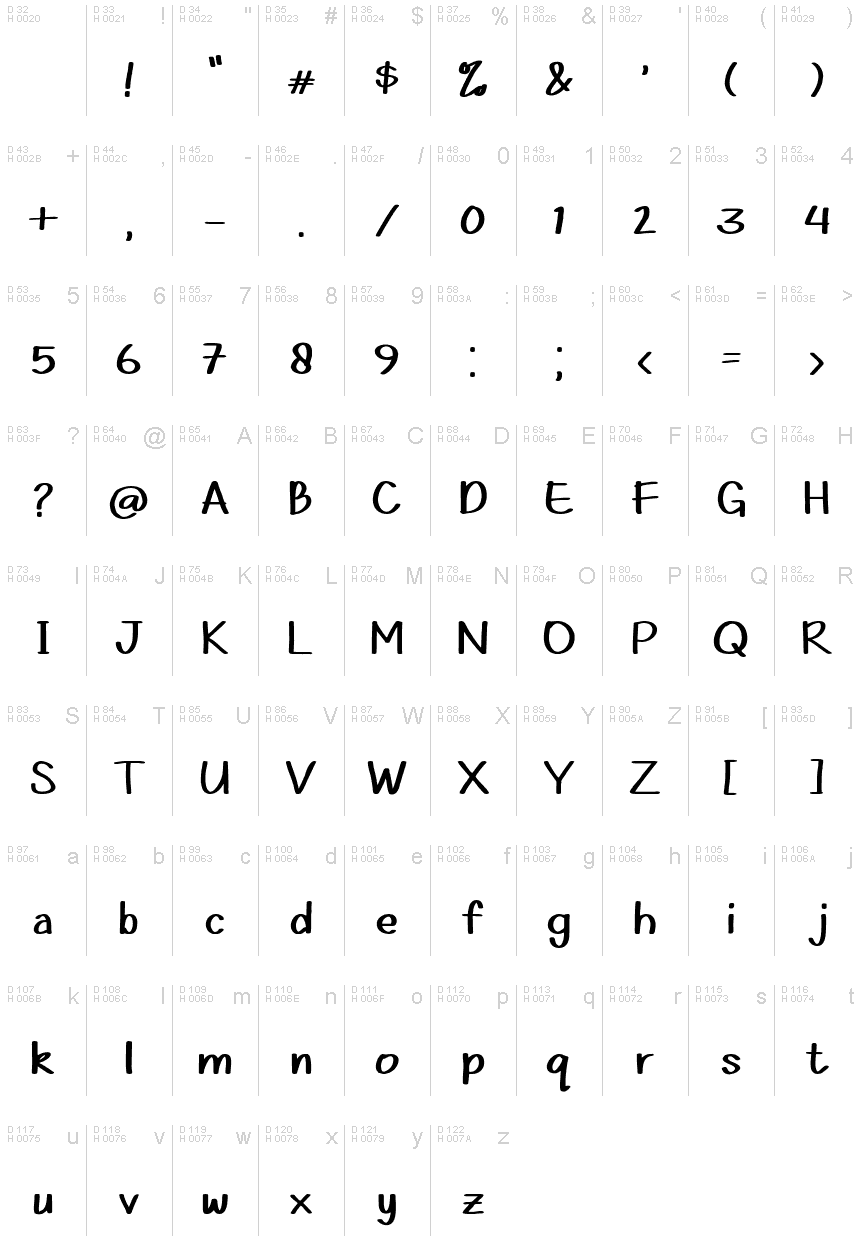
INTRODUCING SANTAY AJAH FONT
A Quotable Font
Santay Ajah Font by Alifinart Studio
Santay Ajah Font by Alifinart
It is a font that denotes being relaxed, not panick and being at ease.
Santay Ajah font is a type of font that is suitable for informal designs, for children, business related to children, children's education or all things related to mother and baby.
The philosophy of this font is uplifting yet relaxed. Relax but still serious. Familiar and also friendly.